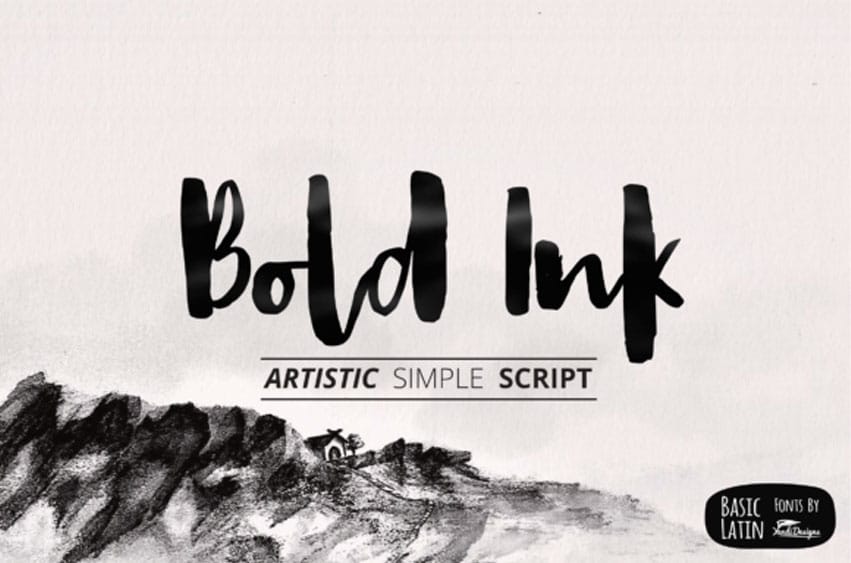
Bold Ink Font is a modern handwritten brush font suitable for projects such as logos, book covers, t-shirt designs and much more.
Give your next design a distinct look with this unique font.